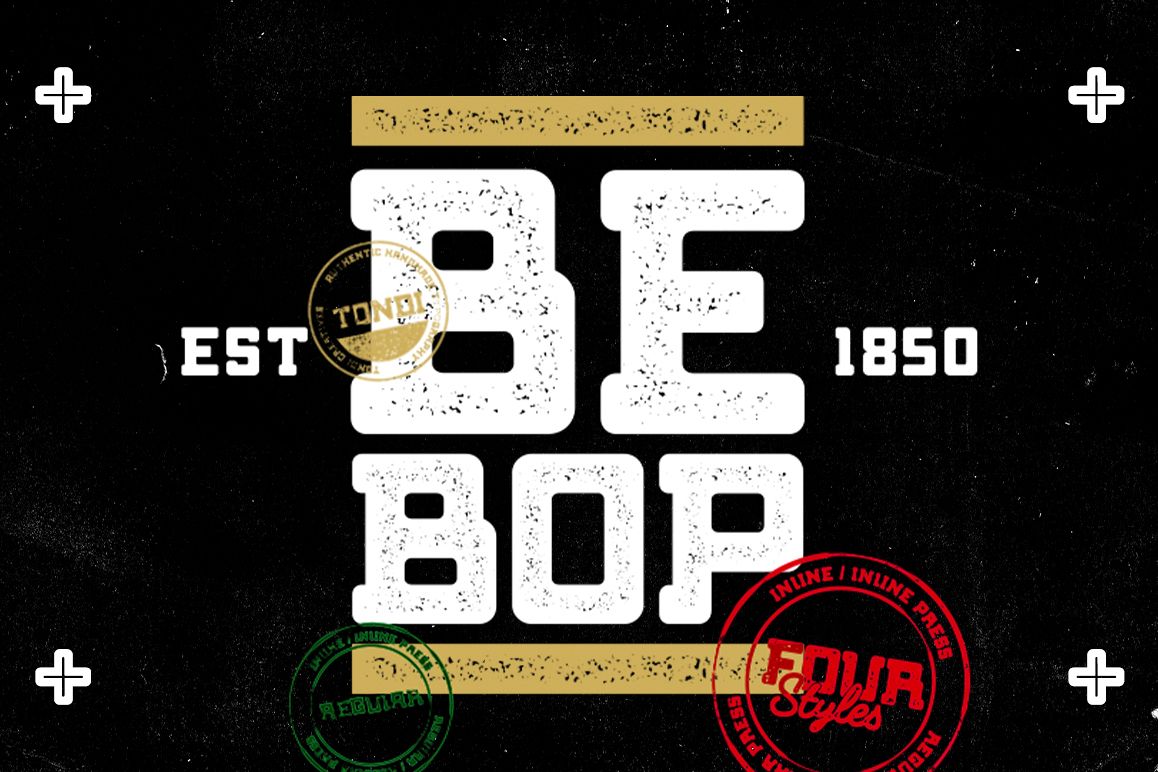
Bebop Slab Serif Font Family
Bebop Slab is a unique and highly legible display slab serif typeface that is tailor-made for use in impactful headlines and iconic word-marks. It comes with extended glyphs for multiple language support and a variety of weights.Bebob Slab Font Family comes in four unique styles:
• Regular
• Regular Press
• Inline &
• Inline Press